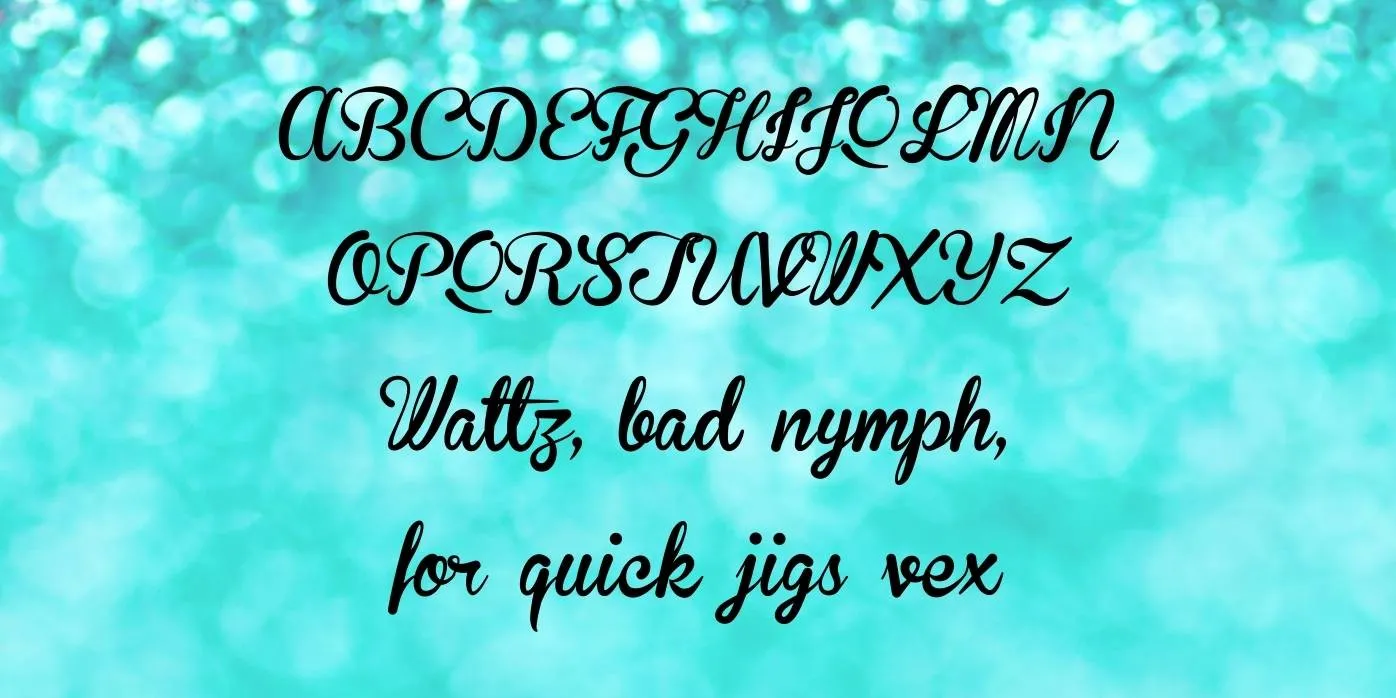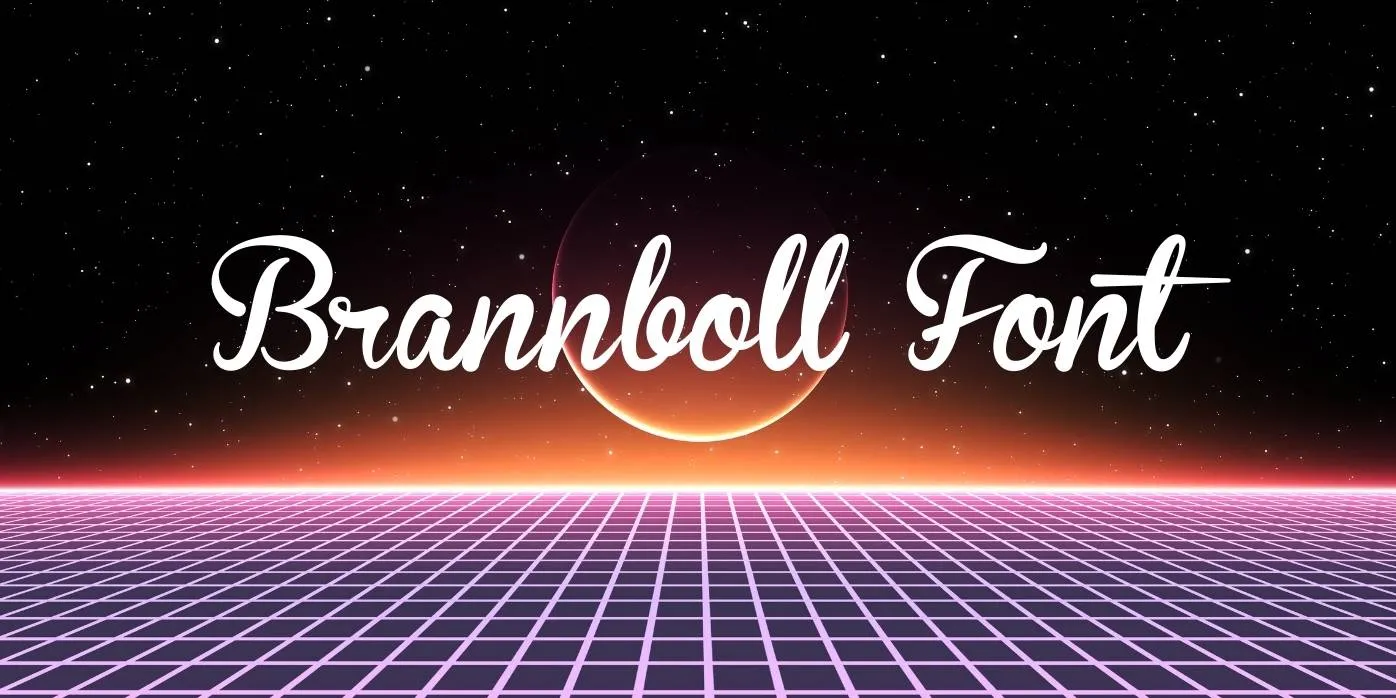
Brannboll Font
Lets we are discussing a very famous font family that earn massive fame in the different designing market that is known as Brannboll Font. This classic font belongs to the Script typeface family. Firstly this astonishing font was released in the market in the year 2015. This font family was designed by an elegant and excellent designer named Mans Greback.
Because of a standard look and unique Glyphs, it is used for various types of Fashion magazines and ads. Its unique and standard letters make this font worth appropriate and different from all others fonts. This classic typeface comes in two different popular styles. Its famous styles are Brannboll FS and Brannboll SS.
The most similar font to this tremendous typeface is  Master of Break Font. This similar font helps in different designing works same like this font. This classy font has many Various swashes that give a charming and attractive look to different words. In addition to its extraordinary features, this amazing font provides the facility of an online tool generator.
Different designers and brands use this marvelous font in their functions like creating different types of animated logos related to different fields, posters of movies, various types of banners, and much more. A great number of magazines companies use this beautiful font for fashion magazines and for writing other newspapers. You can easily use this font for different types of designs related to your interest such as wedding cards, books cover, certificate designs, and many other related fields. While in a big organization you can use this great font for different types of presentations related to various topics and planes, and for a daily report of orders.
This font belongs to the Script typeface. In the year 2015, this classic font was designed by a well-known designer known as Mans Greback. It is available in different unique Glyphs. Is Brannboll Font is free for commercial purposes?